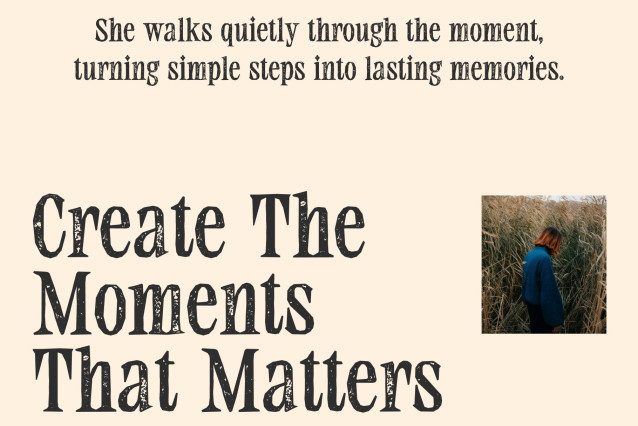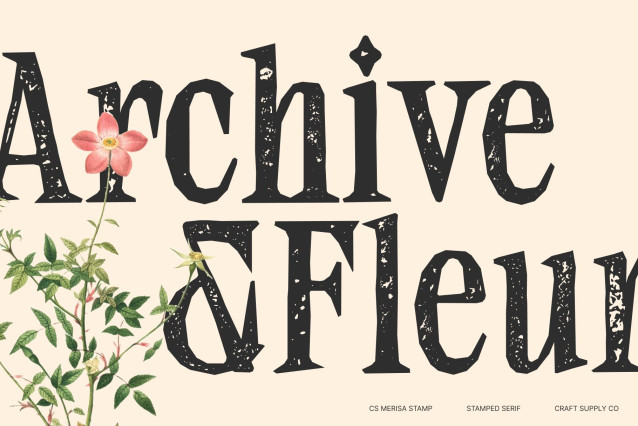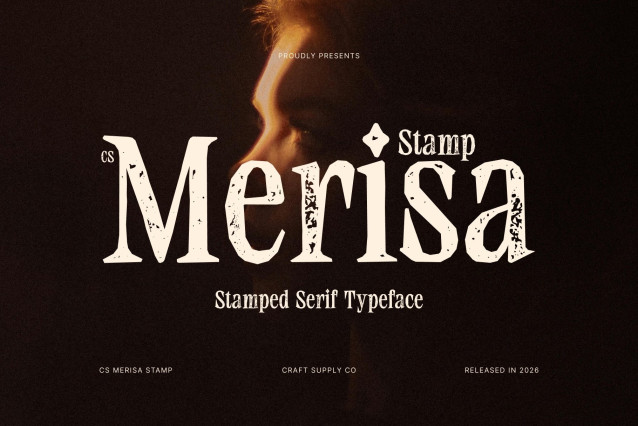
CS Merisa Stamp Font
CS Merisa Stamp – Modern Serif Font: Where Timeless Elegance Meets Expressive Texture
Refined Structure with Slender Precision
This is a classic modern serif font defined by clean, slender lines that create a sophisticated and professional appearance. Its graceful proportions and balanced letterforms deliver clarity and elegance, making it a strong choice for designs that demand refinement without excess. Each character is carefully shaped to maintain harmony while projecting a confident, polished tone.
Stamp Texture with Historical Character
This font introduces depth and personality into its refined structure. The slightly distressed finish evokes a sense of history, as if each letter carries the imprint of traditional print techniques. This textured layer adds warmth and authenticity, transforming the font into a more expressive and visually engaging tool.
Elegant Style with Artistic Presence
This font blends timeless serif tradition with subtle artistic flair. Its slender construction ensures readability and grace, while the textured details add character and uniqueness. This combination allows the typeface to feel both classic and contemporary, offering designers a versatile option that communicates elegance with individuality.